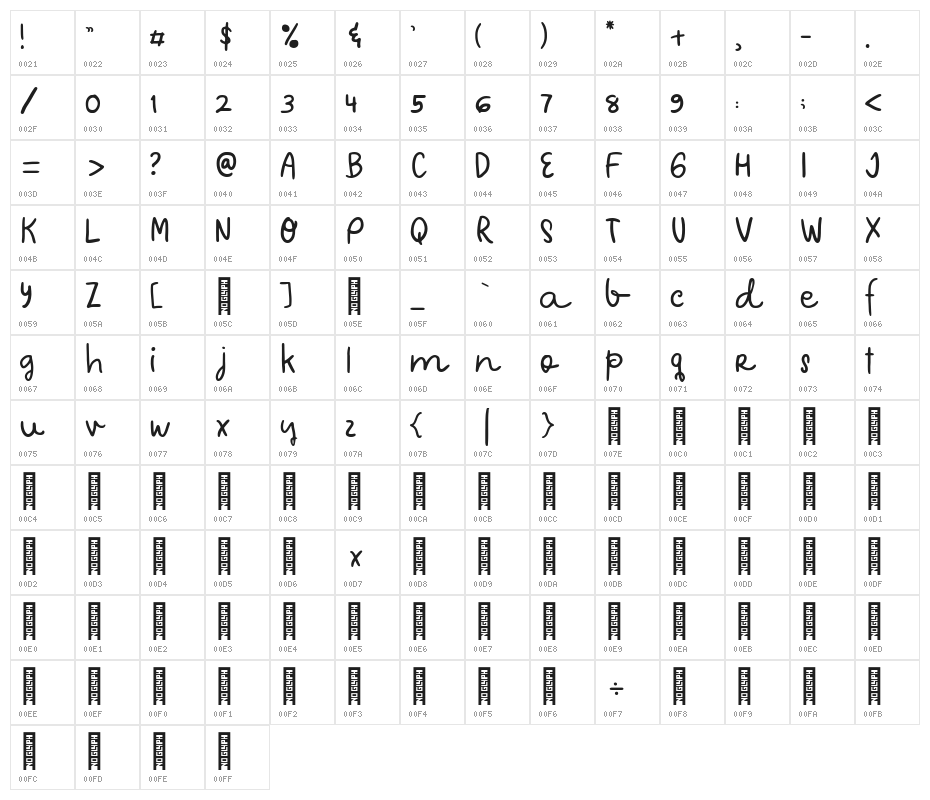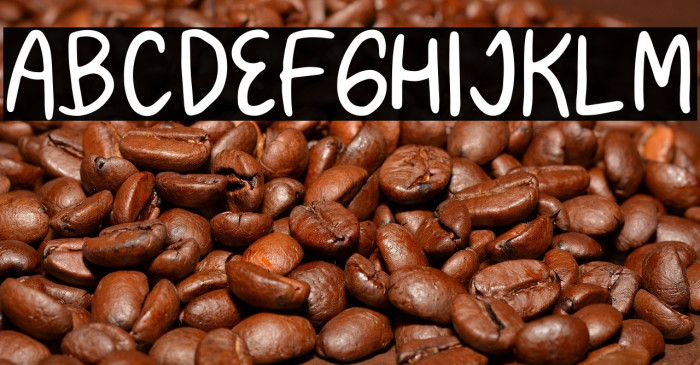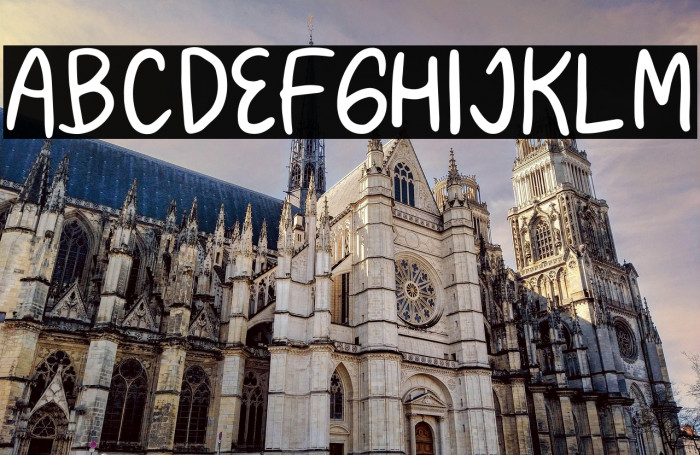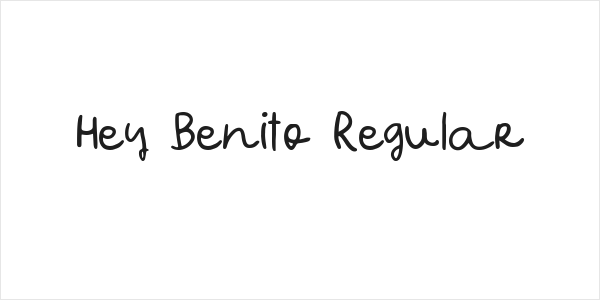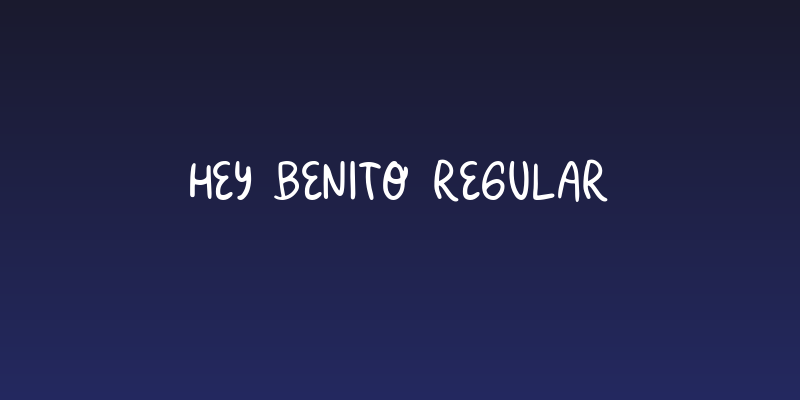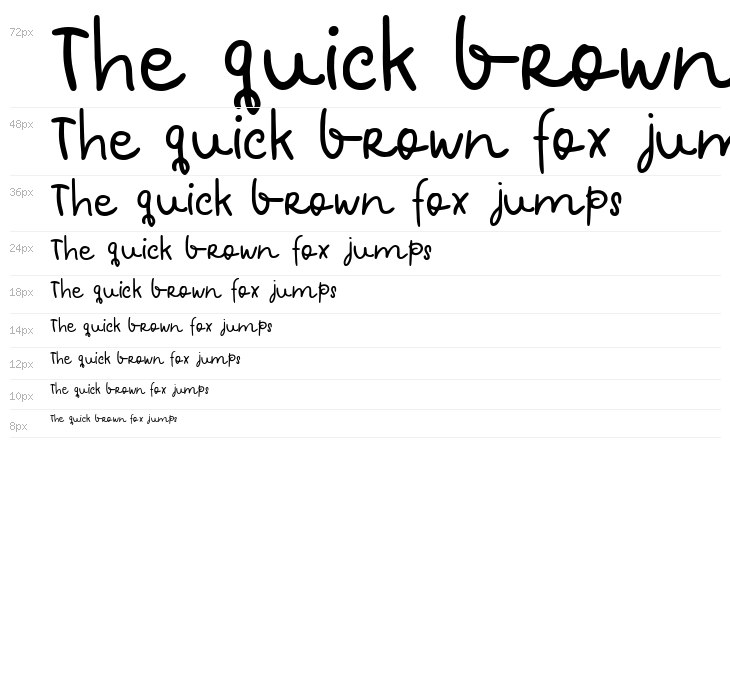
Hey Benito Regular Font
Hey Benito Regular Description
This playful and casual font features a handwritten style with a smooth, flowing appearance. The characters are slightly irregular, adding a personal and informal touch. The uppercase letters are bold and rounded, while the lowercase letters maintain a consistent flow with slight variations in height and width. Numbers and special characters follow the same playful style, making the font versatile for various creative projects. The overall look is friendly and approachable, perfect for designs that require a personal touch.
Overall StyleCasual, Playful
Use CaseHeadlines, Informal text, Creative projects
Proposed ProjectsIdeal for greeting cards, children's books, casual branding, and social media graphics.